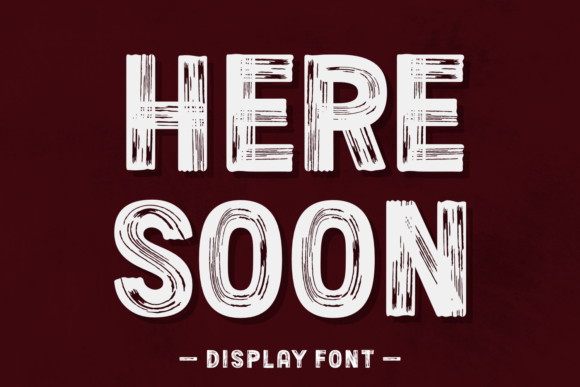
Welcome to the world of Here Soon, a captivating display font that captures the alluring essence of a bygone era. Immerse yourself in the rich tapestry of retro aesthetics, where memories and nostalgia weave a timeless charm. Here Soon is not just a font; it's a journey through time, a portal to the golden age of design.
Unleash your creativity with Here Soon's diverse weights, allowing you to tailor your designs to perfection. From delicate whispers to bold statements, Here Soon adapts effortlessly to your artistic vision. Its versatile nature empowers you to craft designs that resonate with authenticity and timeless appeal.
With Here Soon, you'll embark on a typographic adventure, where each letter dances with grace and elegance. Its hand-drawn strokes evoke the charm of vintage artistry, adding a touch of sophistication to your projects. Picture your designs adorned with Here Soon's captivating curves, exuding an allure that speaks volumes.
Step into the classroom of the past, where Here Soon's playful spirit comes alive. Its charming retro style sparks curiosity and ignites imaginations, making it the perfect companion for back-to-school projects. Create eye-catching posters, vibrant flyers, and engaging worksheets that transport students to a world of wonder and nostalgia.
Here Soon is more than just a font; it's an invitation to explore the boundless realms of creativity. Its versatility knows no bounds, lending its retro charm to logos, branding, invitations, and social media posts. With Here Soon, you'll leave an unforgettable impression, captivating your audience with a touch of vintage magic.
Don't miss out on the opportunity to embrace the timeless allure of Here Soon. Let its captivating strokes grace your designs, adding a layer of depth and sophistication. Whether you're a seasoned designer or just starting your creative journey, Here Soon will guide you towards typographic excellence. Join the ranks of those who appreciate the beauty of retro aesthetics and make Here Soon your go-to font for captivating projects that stand the test of time.